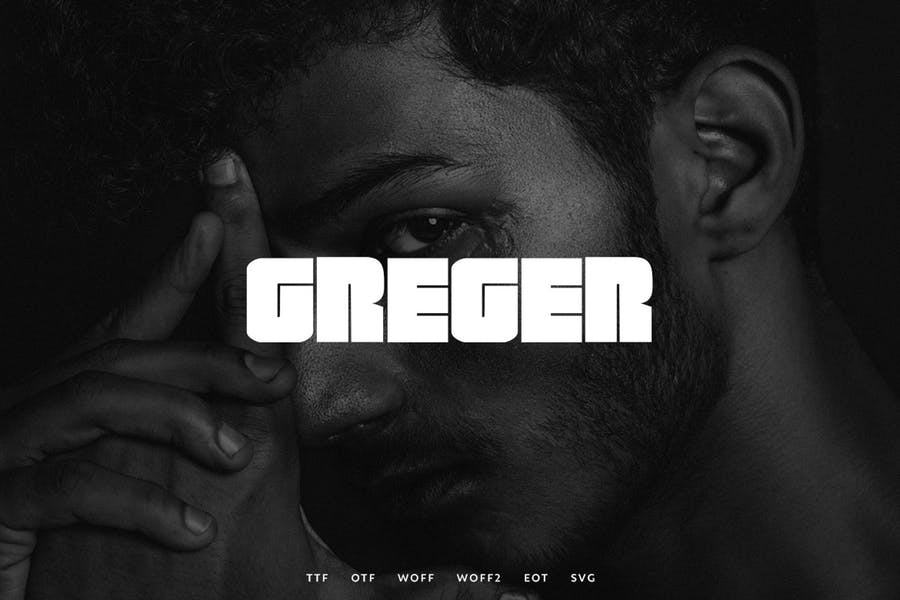
Greger Font
Greger Font is perfect for Scandinavian design brands, Nordic lifestyle companies, minimalist architecture firms, contemporary furniture retailers, clean wellness centers, modern home goods packaging, progressive environmental organizations, sophisticated tech startups, refined cultural institutions, and authentic Nordic lifestyle branding.
Greger Font creates excitement because it embodies the essential simplicity and functional elegance of Nordic design philosophy with its clean letterforms and Scandinavian-inspired character structure. The font's balanced proportions and minimalist aesthetic instantly convey authentic Nordic sophistication and purposeful design, making any brand appear genuinely Scandinavian and thoughtfully crafted. Its carefully refined Nordic details and functional character create an immediate sense of authentic simplicity that captivates audiences seeking genuine Nordic experiences, clean design, and products that celebrate the transformative power of Scandinavian design principles and minimalist living.
The Greger Font family includes multiple weights and styles: Thin, Light, Regular, Medium, Bold, Italic variants for each weight, Condensed, Extended, Nordic, and Clean versions. Each variant maintains the font's signature Scandinavian character while offering different levels of Nordic styling and minimalist authenticity suitable for various design and lifestyle applications.
This refined typeface brings the authentic spirit of Nordic design into contemporary branding with remarkable simplicity and Scandinavian appeal. Greger Font Free Download provides Nordic brands and design-conscious organizations with access to premium Scandinavian-inspired typography that embodies the essence of functional beauty and Nordic lifestyle excellence. The font's clean design and Nordic authenticity make it ideal for businesses seeking to establish meaningful connections with design-conscious audiences who appreciate Scandinavian aesthetics, minimalist functionality, and the transformative power of Nordic design thinking. Whether you're creating branding for lifestyle companies, designing materials for furniture retailers, developing communications for wellness centers, or producing content for environmental organizations, this font delivers the authentic Nordic atmosphere that resonates with audiences seeking genuine simplicity, functional design, and the peaceful satisfaction that comes from embracing Nordic lifestyle principles. Its versatile design ensures outstanding performance across both minimalist printed materials and clean digital applications while maintaining the character of authentic Scandinavian typography. The font excels in applications requiring design credibility and Nordic appeal. Design professionals appreciate its ability to convey Scandinavian authenticity while remaining highly functional for various lifestyle communications and Nordic promotional materials. The comprehensive character set includes Nordic symbols and extensive international language support, making it perfect for global Scandinavian brands and international Nordic lifestyle organizations seeking to communicate authentic Nordic values, functional design excellence, and Scandinavian lifestyle wisdom to diverse worldwide audiences who embrace minimalist living, appreciate functional beauty, and seek the transformative power of genuine Nordic design philosophy that creates harmony through purposeful simplicity, sustainable thinking, and the timeless elegance of authentic Scandinavian design traditions.